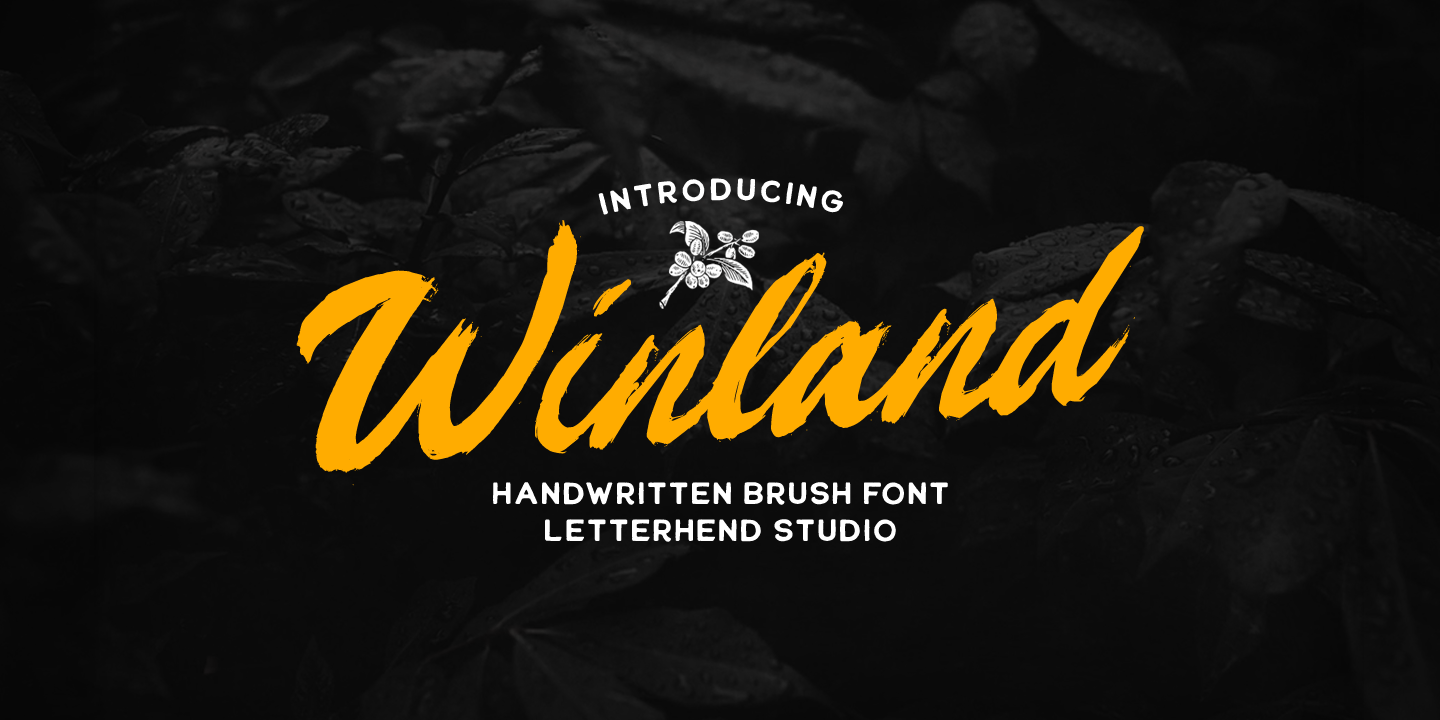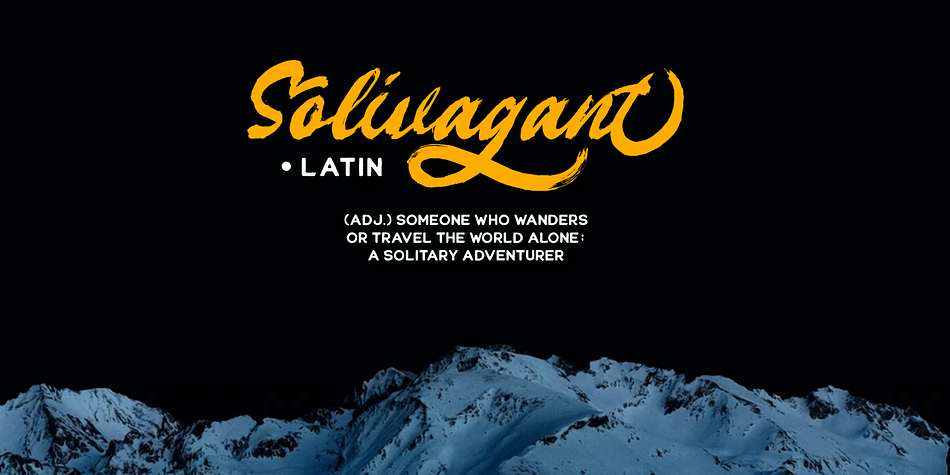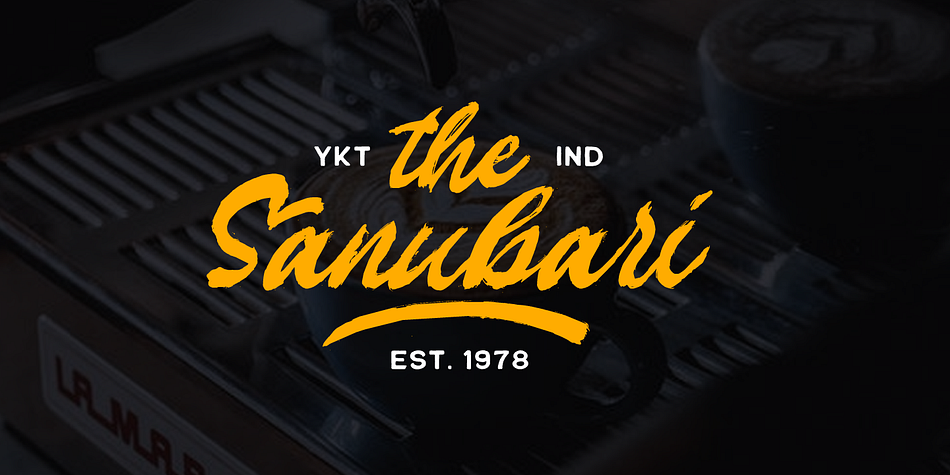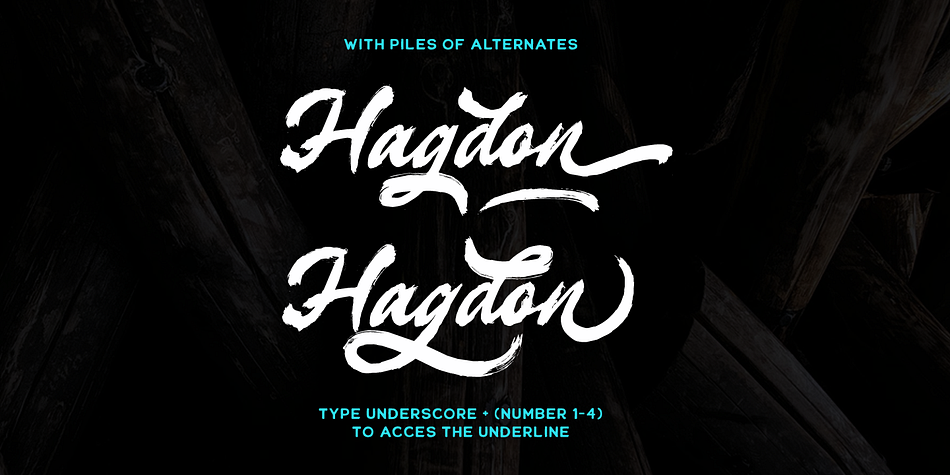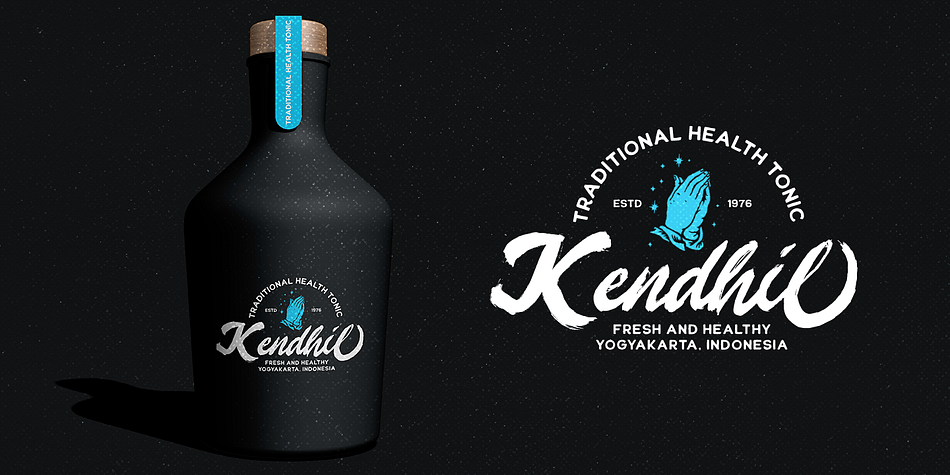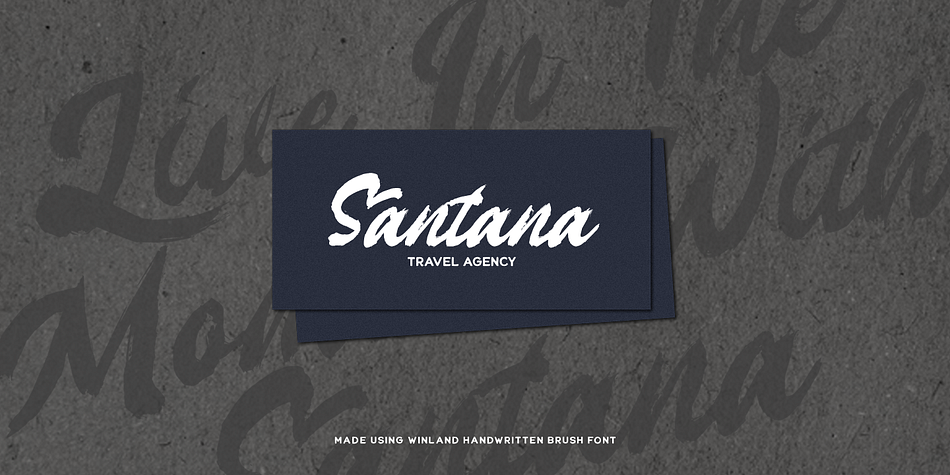
Designed by Hendry Juanda, Winland is a brush script, grunge and script font published by Letterhend Studio.
Introducing, Winland. This font is carefully crafted by handwritten brush to get the feels of natural brush. you can use this font for branding, packaging, quotes, headline, etc
- uppercase & lowercase (alternates)